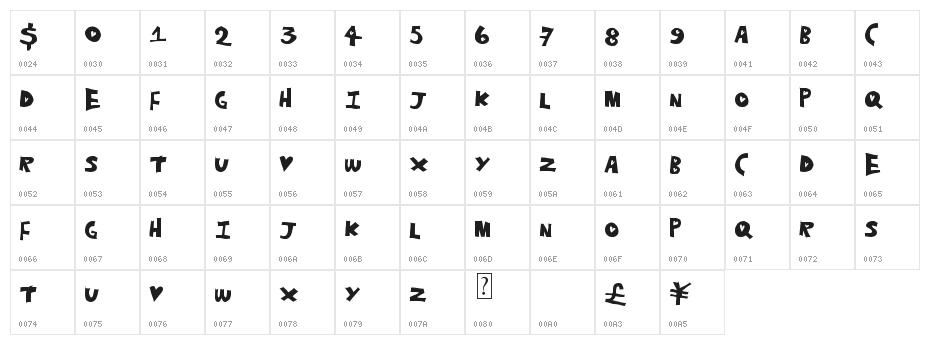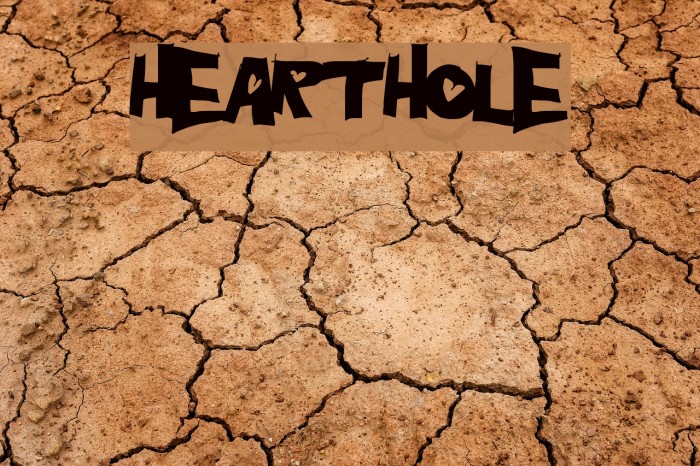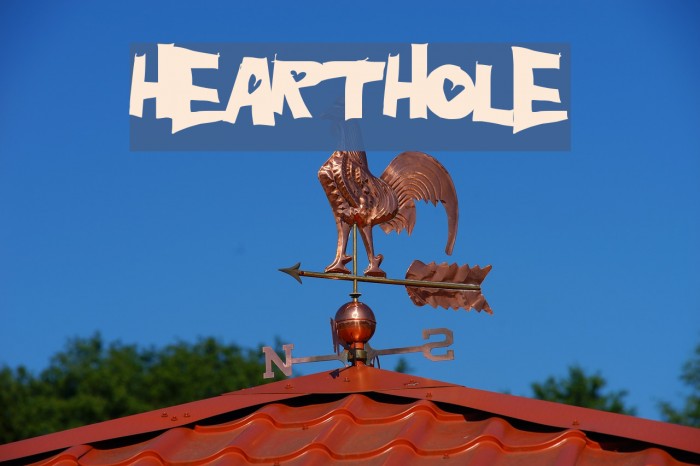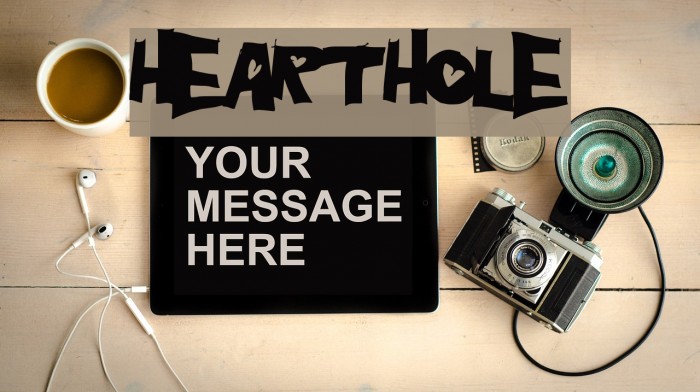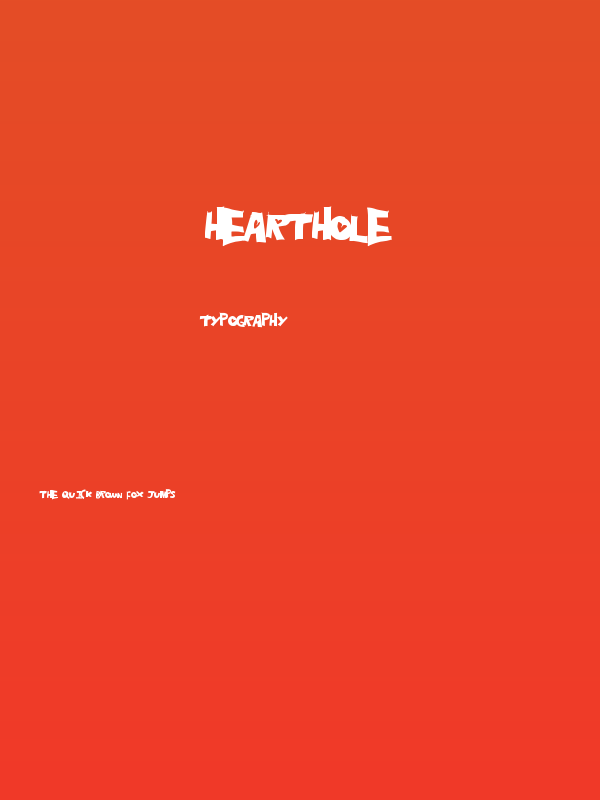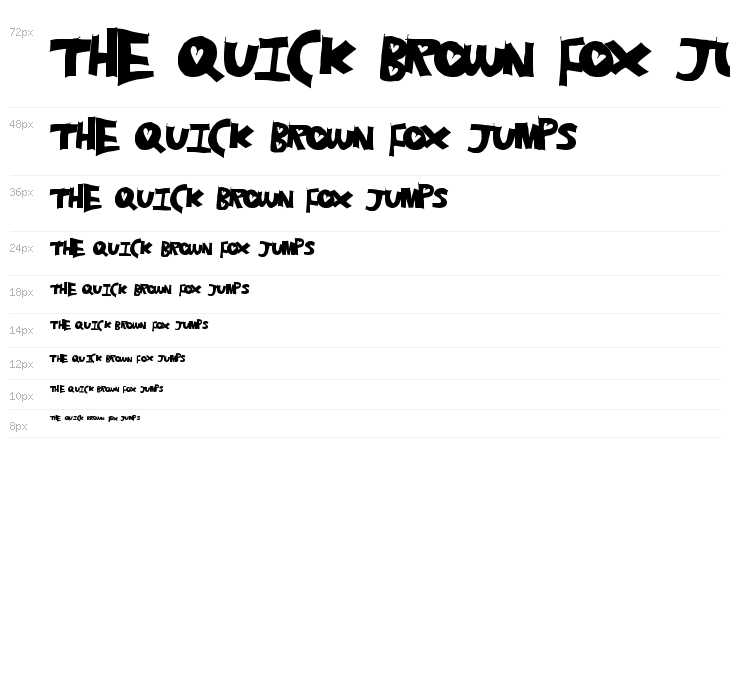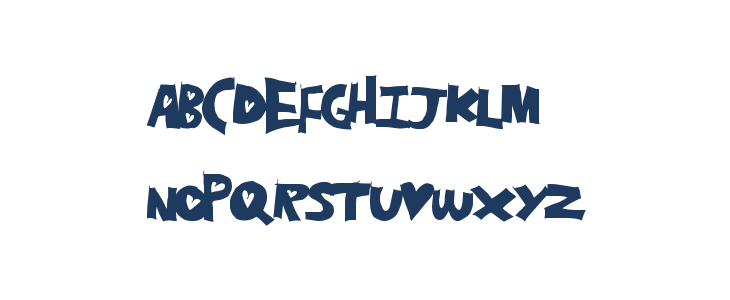
HeartHole Font
HeartHole Description
This font features a bold, playful style with a graffiti-like appearance. The characters are irregular and dynamic, with exaggerated curves and angles that give them a lively and energetic feel. The uppercase and lowercase letters maintain a consistent style, while the numbers and special characters add a unique flair with their unconventional shapes. The heart-shaped hole in the letter 'V' and the number '0' adds a whimsical touch, making the font stand out. Its bold strokes and high contrast make it suitable for eye-catching designs.